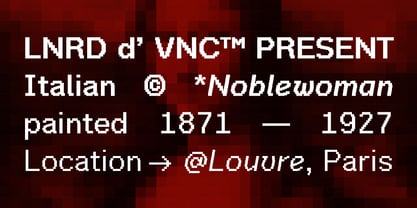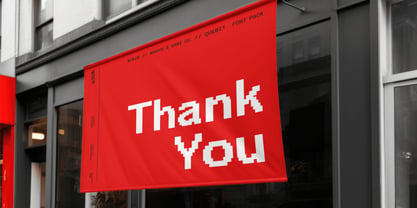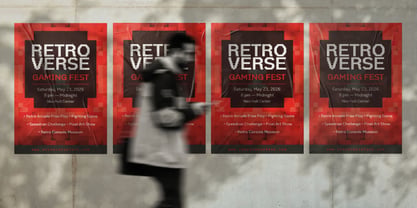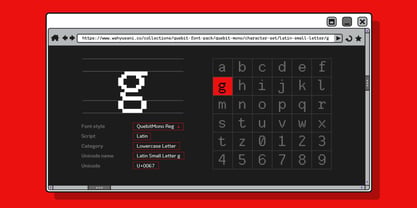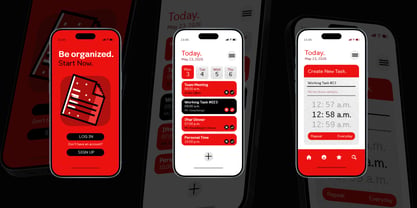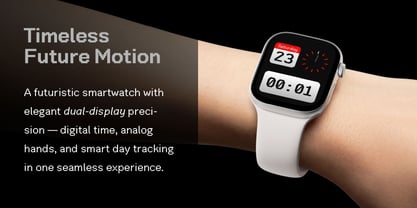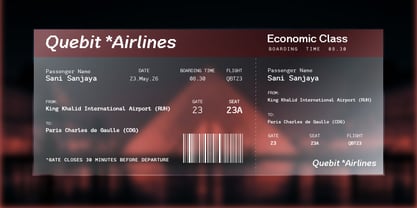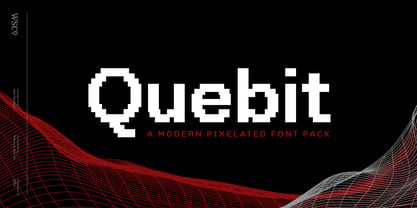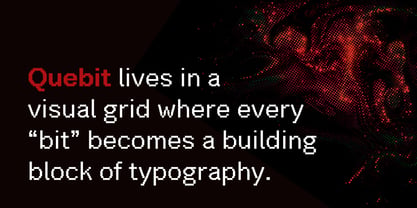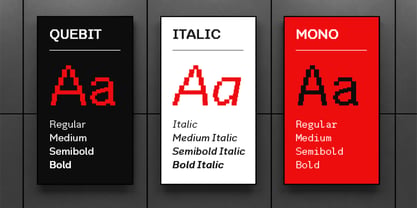
Quebit
by Wahyu and Sani Co.
The Quebit Font Family was designed by Sani Sanjaya and published by Wahyu and Sani Co.. Quebit contains 12 styles and family package options. More about this family
Quebit is a modern pixelated font pack that reinterprets classic bitmap aesthetics through a refined contemporary lens. Designed for both expressive display work and functional digital interfaces. The pack includes 12 fonts across Quebit, Quebit Italic, and Quebit Mono each available in four carefully balanced weights: Regular, Medium, Semibold, and Bold.
With crisp geometric construction, disciplined spacing, and versatile OpenType features, Quebit delivers a distinctive retro-futuristic voice while maintaining clarity across branding, UI design, gaming visuals, editorial systems, and experimental typography. Balancing nostalgia with precision, Quebit brings the charm of early digital typography into modern creative workflows.